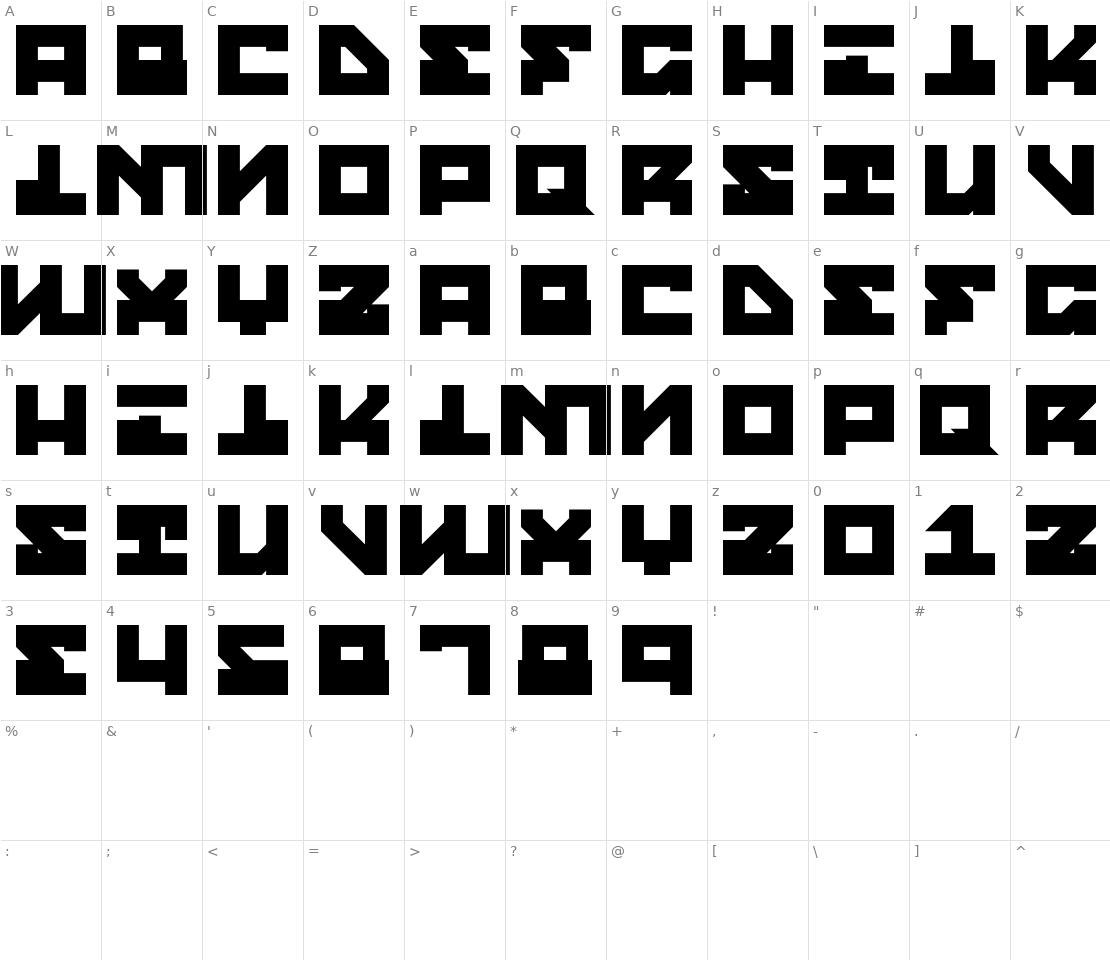
Street Robot Slab
Street Robot Slab is a heavy, blocky slab-serif display face from Out of Step Font Company with a rigid geometric structure that feels almost mechanized. The angular letterforms are thick and unyielding, built from sharp corners and flat surfaces that give everything a robotic, industrial edge. It's a headline face through and through, at home on posters, tech branding, and anything that needs to feel like it was assembled by a machine rather than drawn by hand.